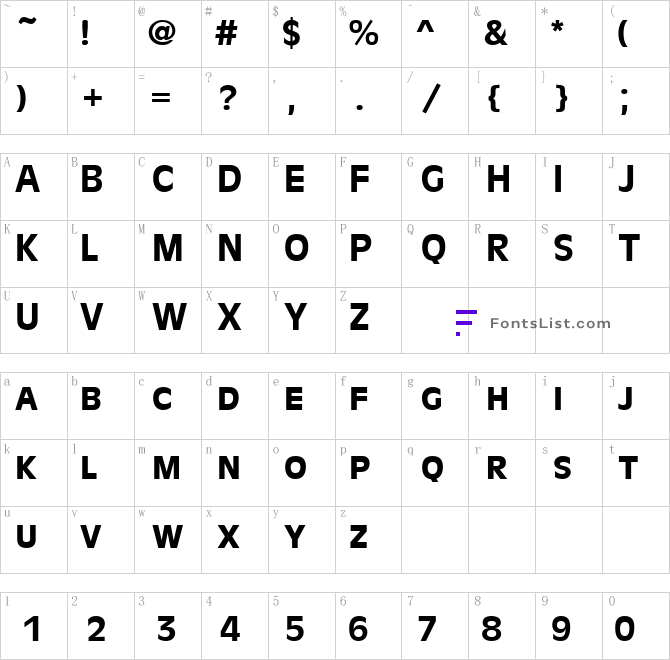
- Font Name:AntiqueOliDCDMed
- Full Name:AntiqueOliDCDMed
AntiqueOliDCDMed.ttf is a very beautiful artistic font, AntiqueOliDCDMed.ttf is widely used in the design and printing of various books and pictures,AntiqueOliDCDMed.ttf has a strong visual impact,AntiqueOliDCDMed.ttf is a commonly used font in newspapers, magazines and books, and is used in posters, e-commerce Poster design, store design, logo design, font design and other fields.AntiqueOliDCDMed.